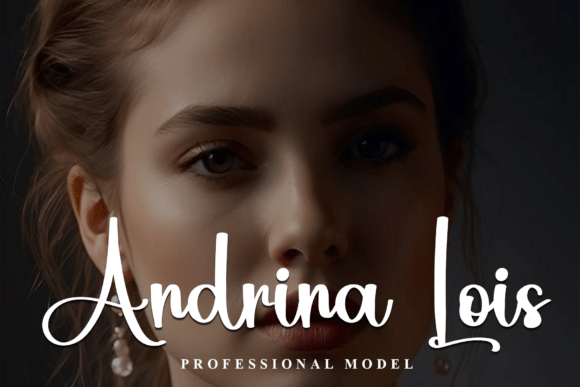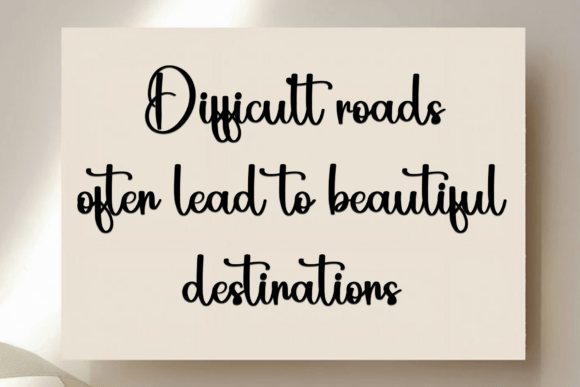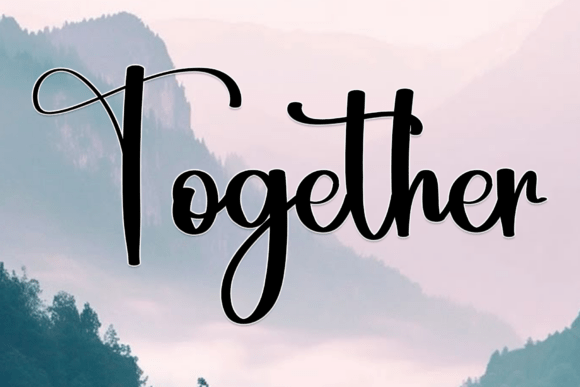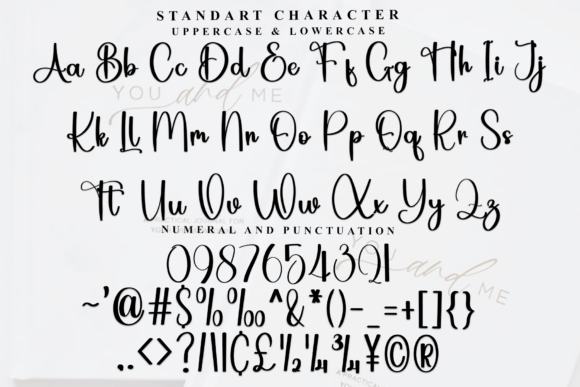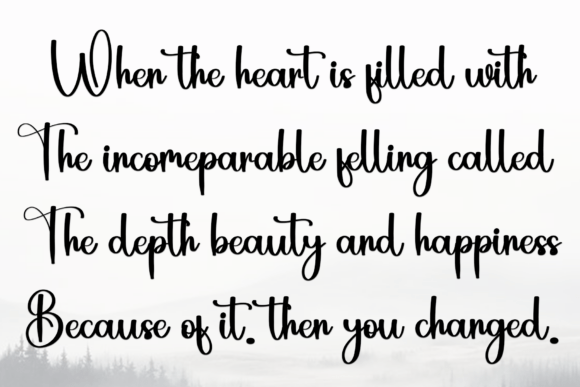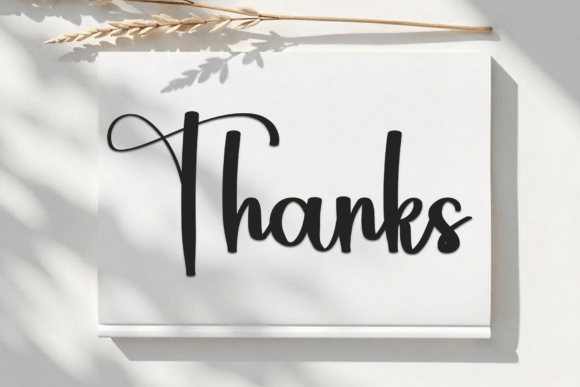
Amanda Font: Elevate Your Designs with a Unique and Versatile Typeface
In the world of typography, a font can make or break a design project. With the right font, you can convey your message, evoke emotions, and capture the attention of your audience. If you’re a designer, crafter, or creative looking for a font that stands out from the crowd, look no further than Amanda Font. In this article, we’ll explore the features, benefits, and uses of Amanda Font, and why it’s a must-have for your design toolkit.
What is Amanda Font?
Amanda Font is a beautiful and eye-catching typeface designed with a soft, unique touch. Its distinctive strokes give it a special character, making it meaningful and versatile for future use. With various characters, Amanda Font is perfect for design projects, crafts, and other creative works. Whether you’re working on a logo, brochure, or social media graphics, Amanda Font is sure to make your designs shine.
Key Features of Amanda Font
- Unique and Soft Design: Amanda Font boasts a one-of-a-kind design that’s both soft and eye-catching. Its gentle curves and rounded edges make it perfect for designs that require a touch of elegance and sophistication.
- Versatile and Meaningful: With its distinctive strokes and special character, Amanda Font is a versatile font that can be used for a wide range of design projects. Its meaningful design makes it perfect for conveying emotions and messages.
- Natural Font Style: Amanda Font features a natural font style that’s perfect for designs that require a organic and earthy feel. Its subtle imperfections and texture make it ideal for designs that need a human touch.
Benefits of Using Amanda Font
So, why should you use Amanda Font in your design projects? Here are just a few benefits:
- Enhance Your Designs: Amanda Font is designed to elevate your designs and make them more appealing to your audience. Its unique and soft design ensures that your designs stand out from the crowd.
- Perfect for Various Creative Fields: Amanda Font is perfect for designers, crafters, and creatives working in various fields, including graphic design, branding, advertising, and more.
Uses of Amanda Font
Amanda Font is a versatile font that can be used in a wide range of design projects, including:
- Logo Design: Create stunning logos that capture the essence of your brand with Amanda Font.
- Brochures and Flyers: Use Amanda Font to create eye-catching brochures and flyers that grab attention.
- Social Media Graphics: Elevate your social media graphics with Amanda Font and make your content stand out.
- Crafts and DIY Projects: Amanda Font is perfect for crafters and DIY enthusiasts who want to add a personal touch to their projects.
In conclusion, Amanda Font is a beautiful and versatile typeface that’s perfect for designers, crafters, and creatives looking for a unique and eye-catching font. Its soft design, distinctive strokes, and compatibility with various applications make it a must-have for your design toolkit. Whether you’re working on a logo, brochure, or social media graphics, Amanda Font is sure to elevate your designs and make them more appealing to your audience.